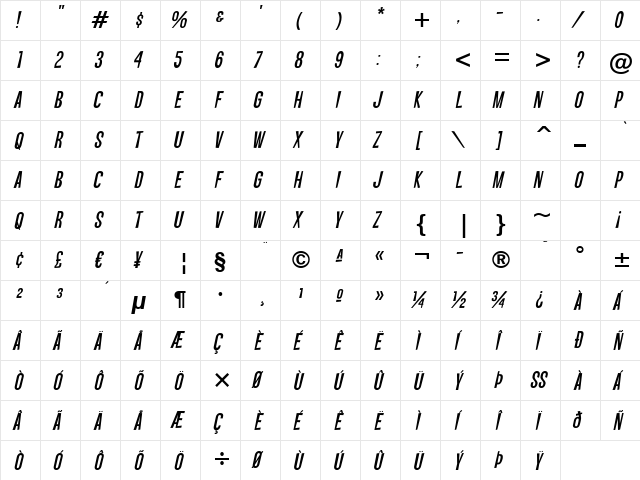
Vanishing Boy BTN Oblique
Design Context for Vanishing Boy BTN Typeface
Vanishing Boy BTN offers clean, dependable letterforms without strong stylistic allegiance, making it a practical choice for designers who need flexibility. The dynamic lean of this cut emphasises speed and emphasis in any layout.
Pro Tip: Use Vanishing Boy BTN for emphasis, pull quotes, and subheadings where its slanted energy can add rhythm to the layout.